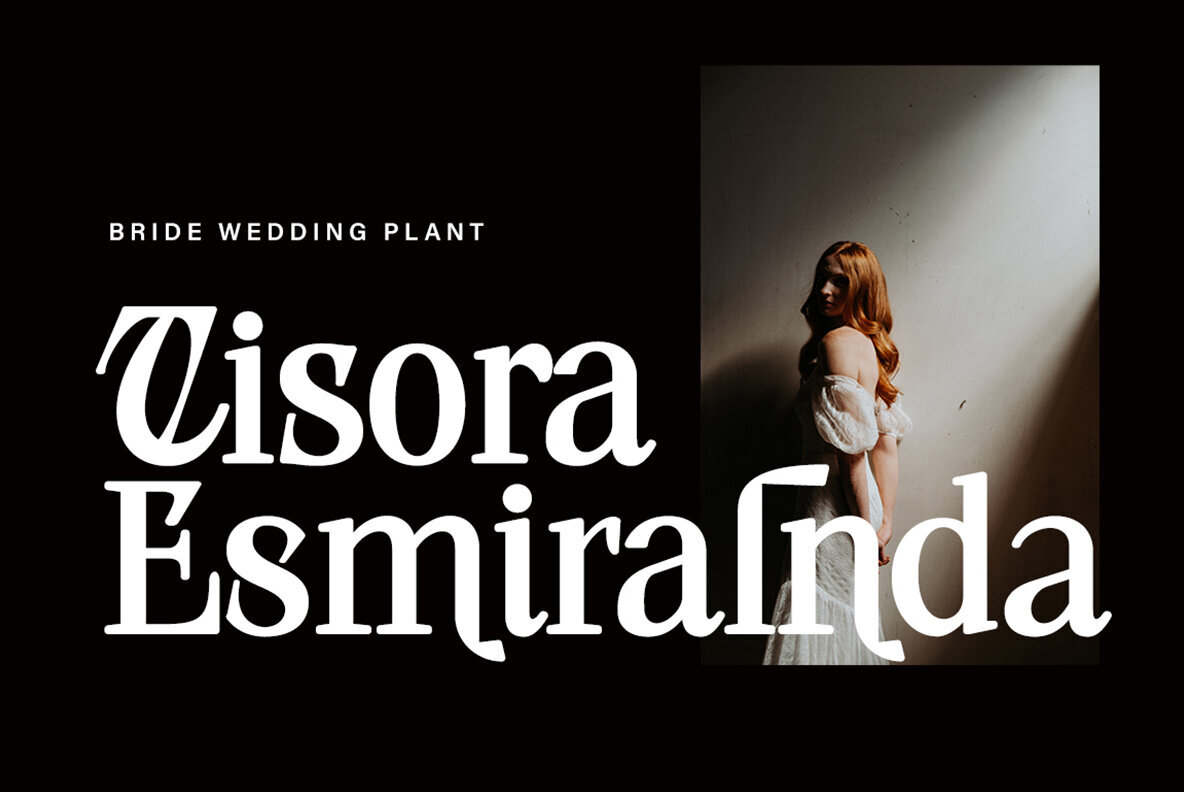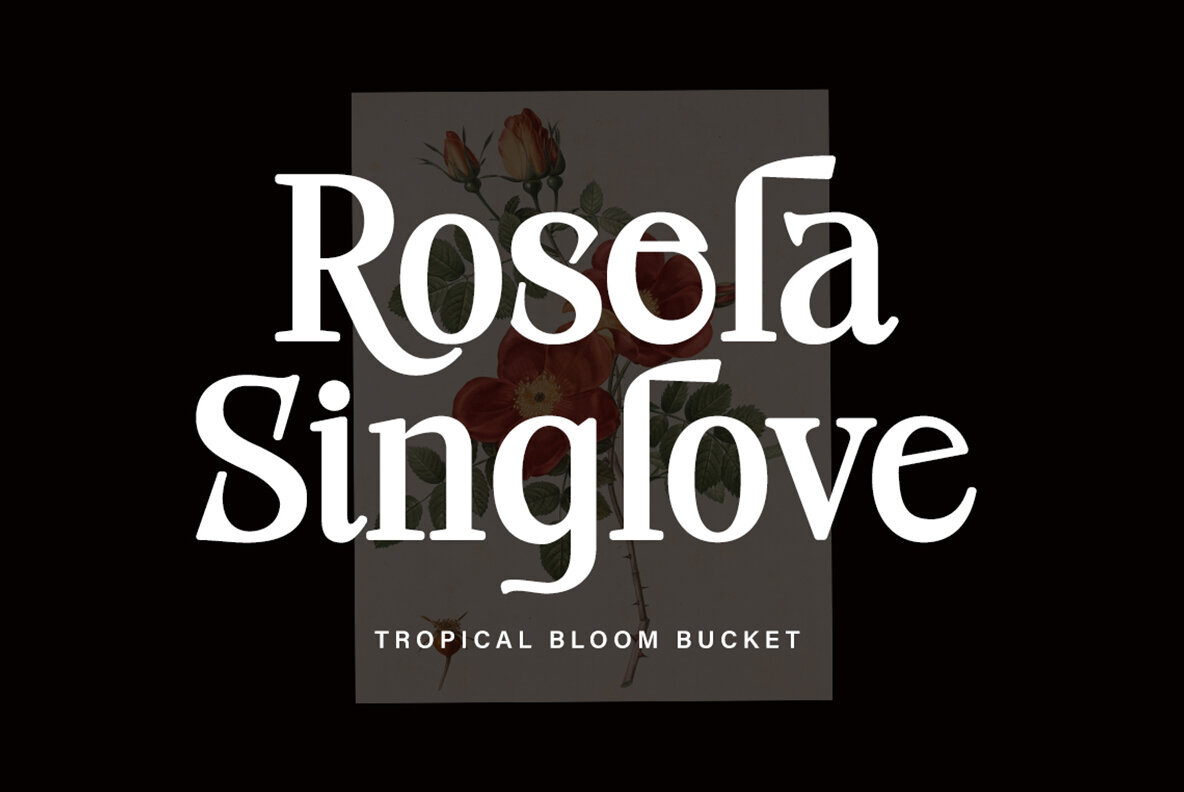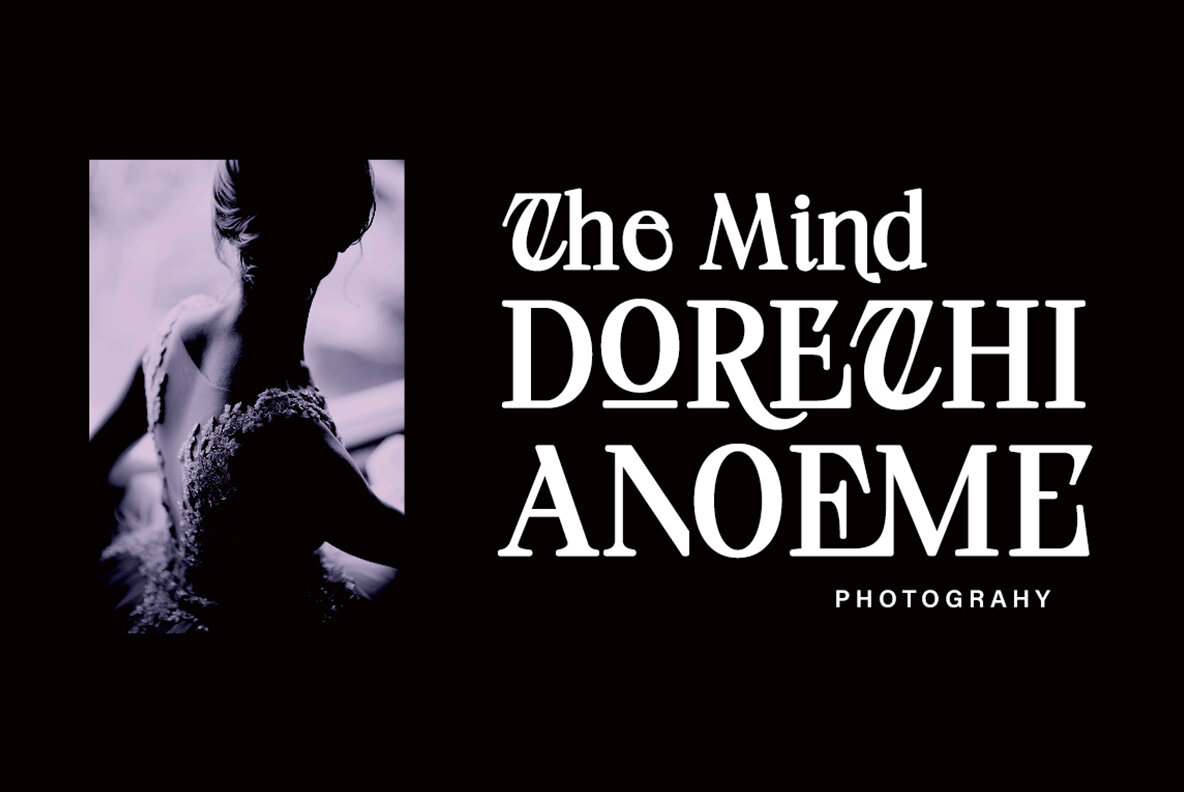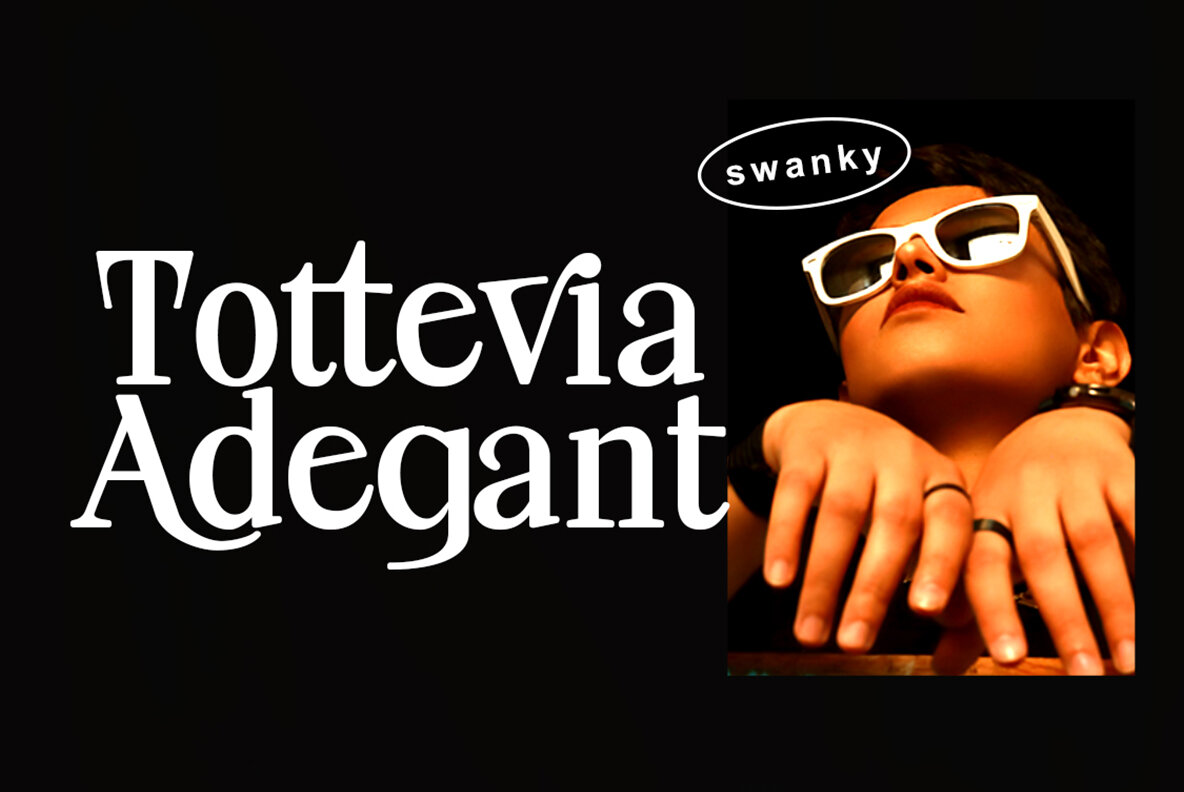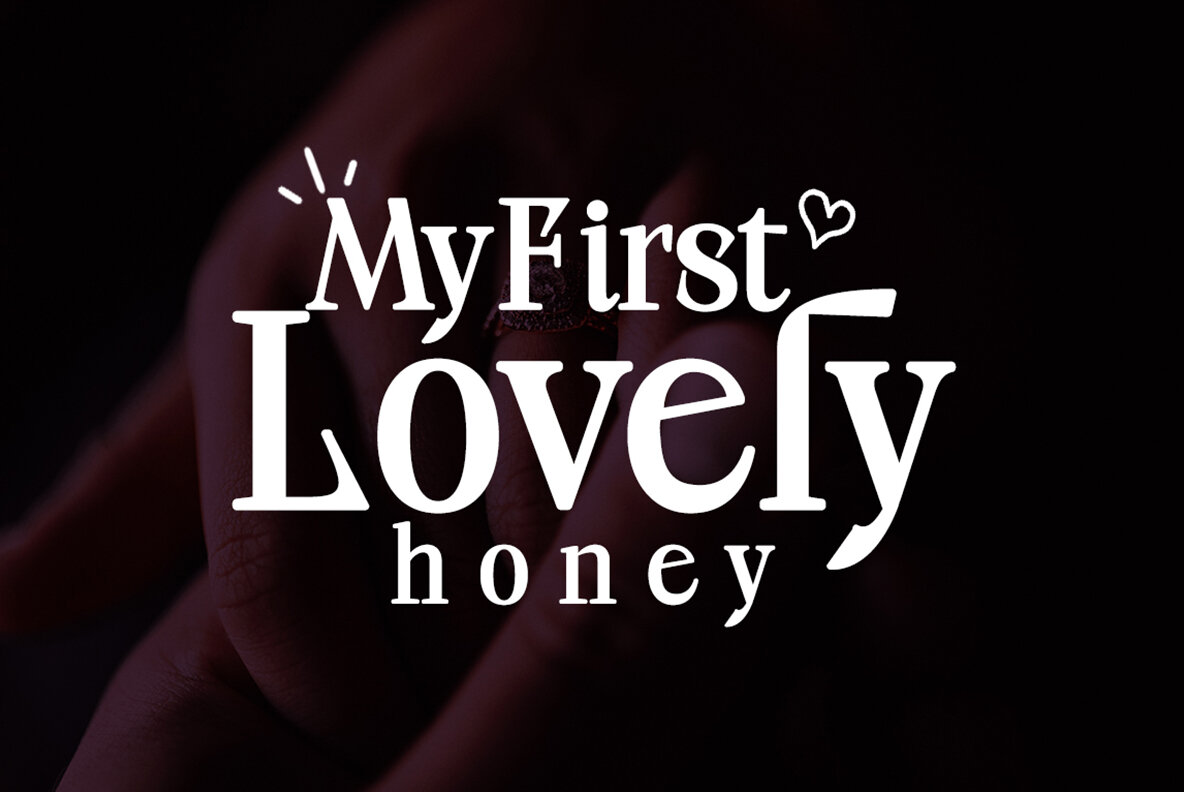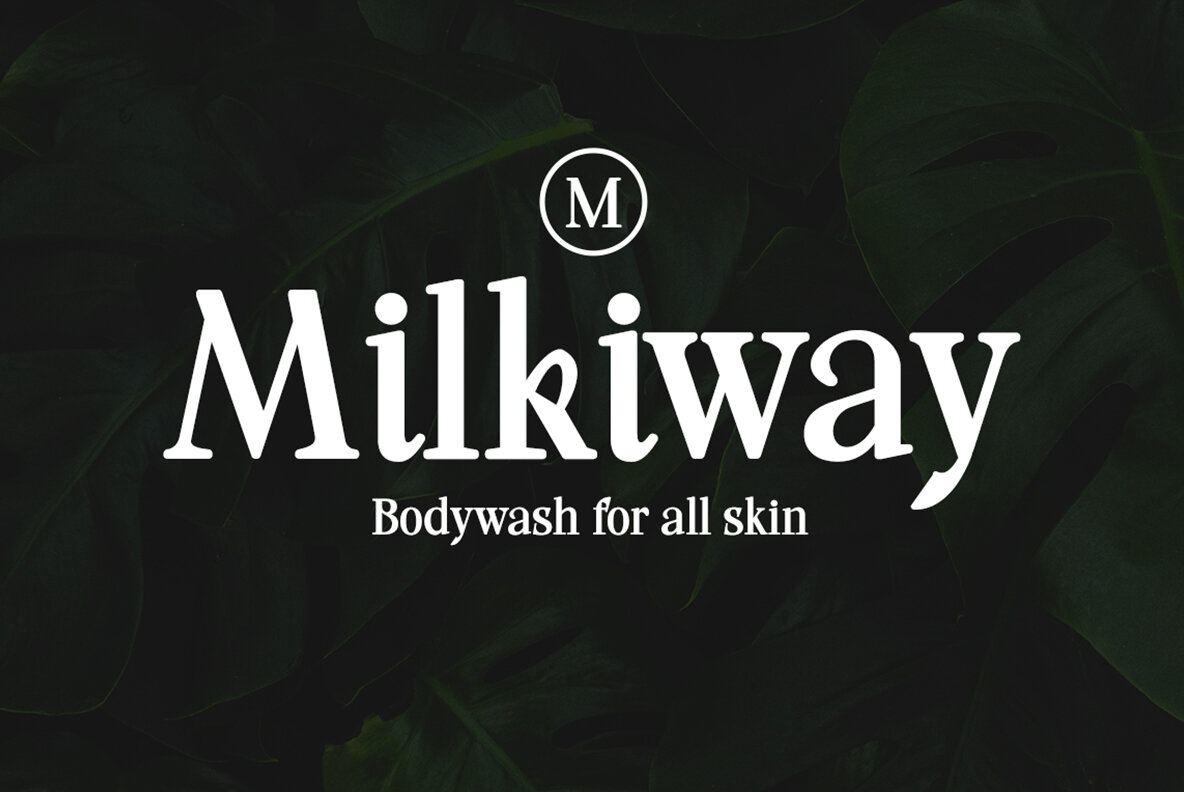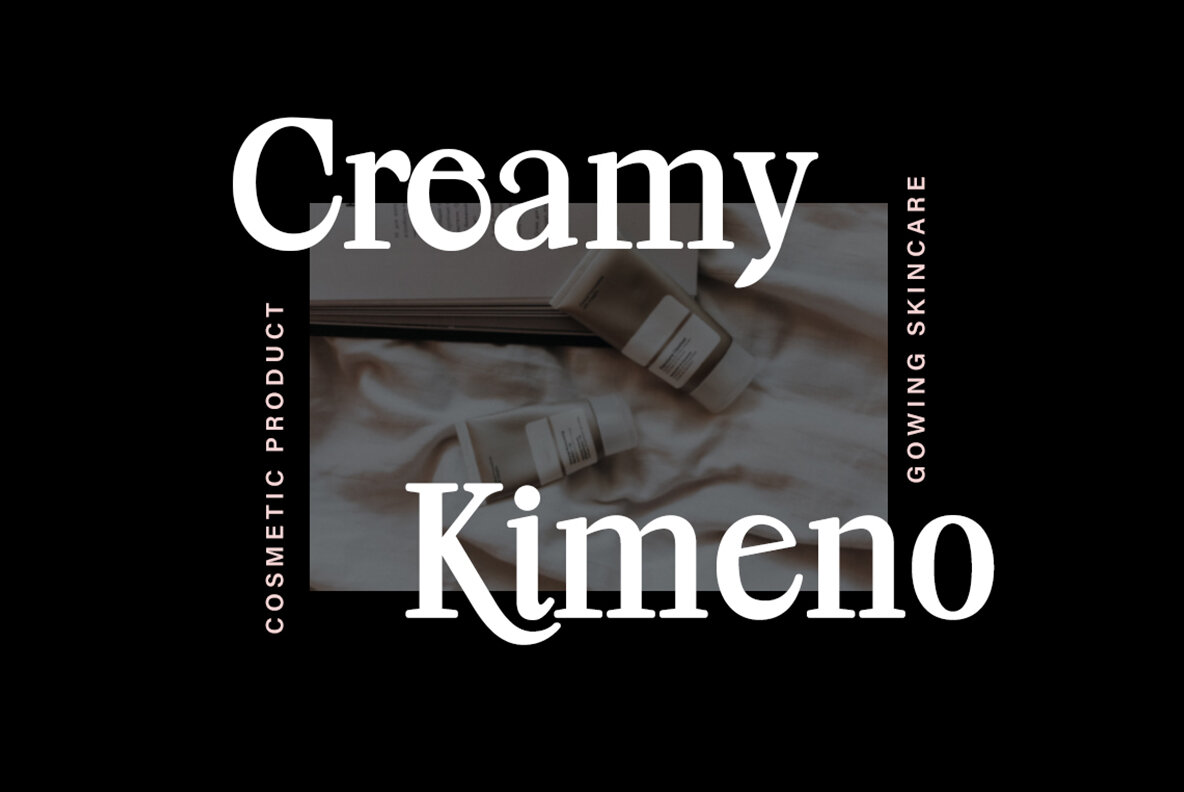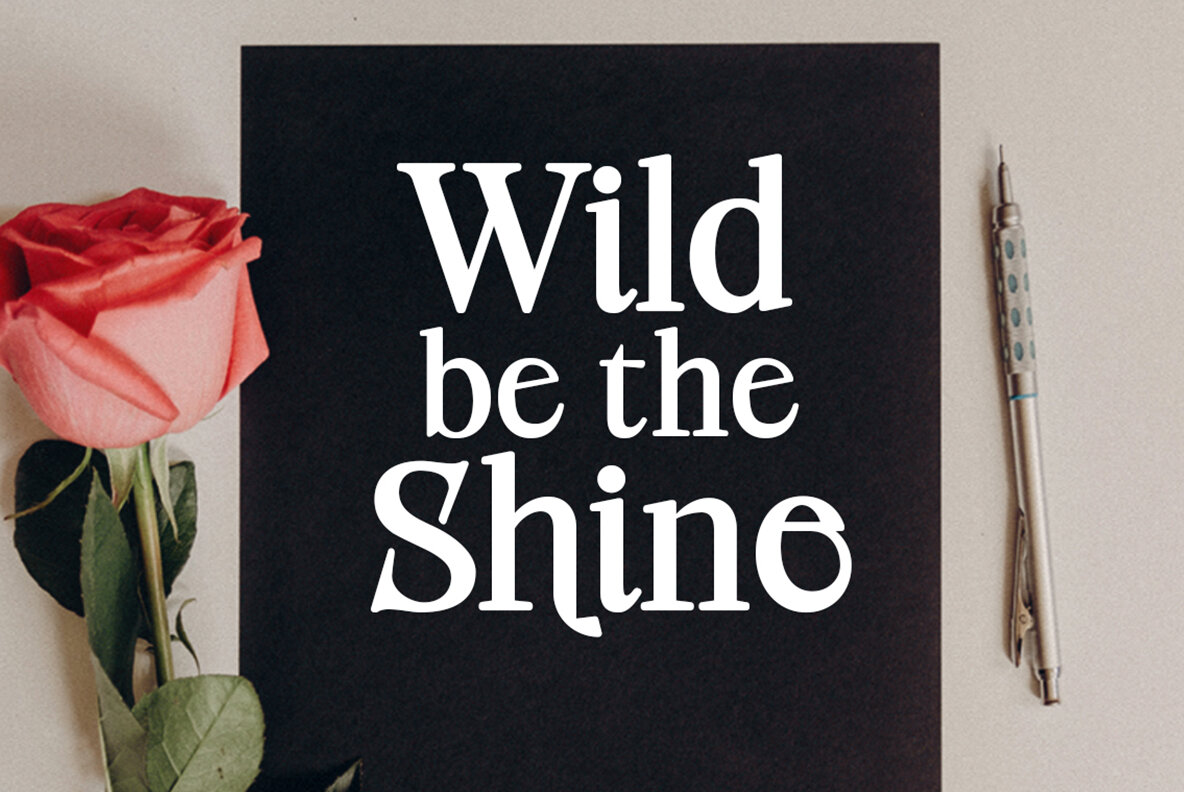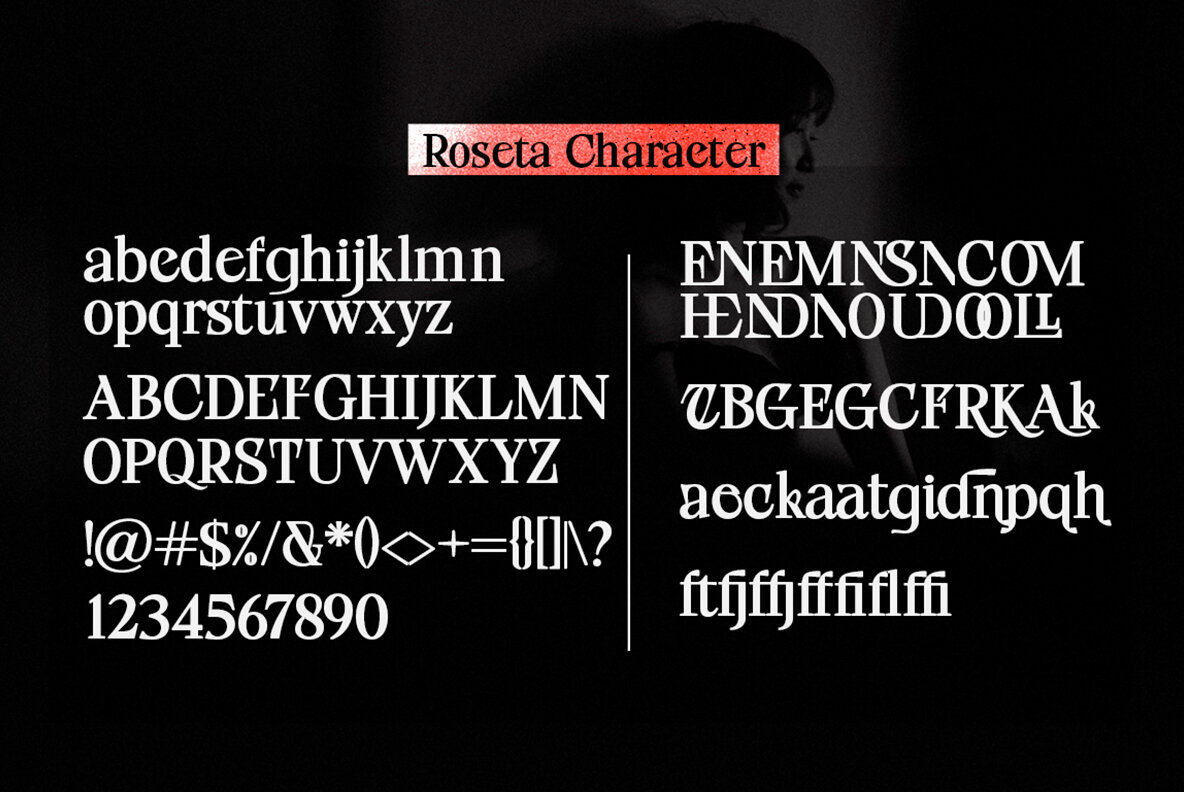
Roseta Display
Roseta Display is an elegant script font that exudes a creative mood and perfect form, drawing inspiration from contemporary serif display styles. This thick, balanced, and varied typeface is designed to capture luxury and beauty effortlessly. Whether you're creating logotypes, branding projects, wedding invitations, or romantic cards, Roseta Display offers versatile applications. It works beautifully on alcohol labels, packaging designs, and name spellings, providing a distinctive flair to your projects. Roseta Display comes with multilingual support, making it suitable for various linguistic contexts, ensuring your designs can reach a global audience.Roseta Display: Elegant Script for Luxurious Design